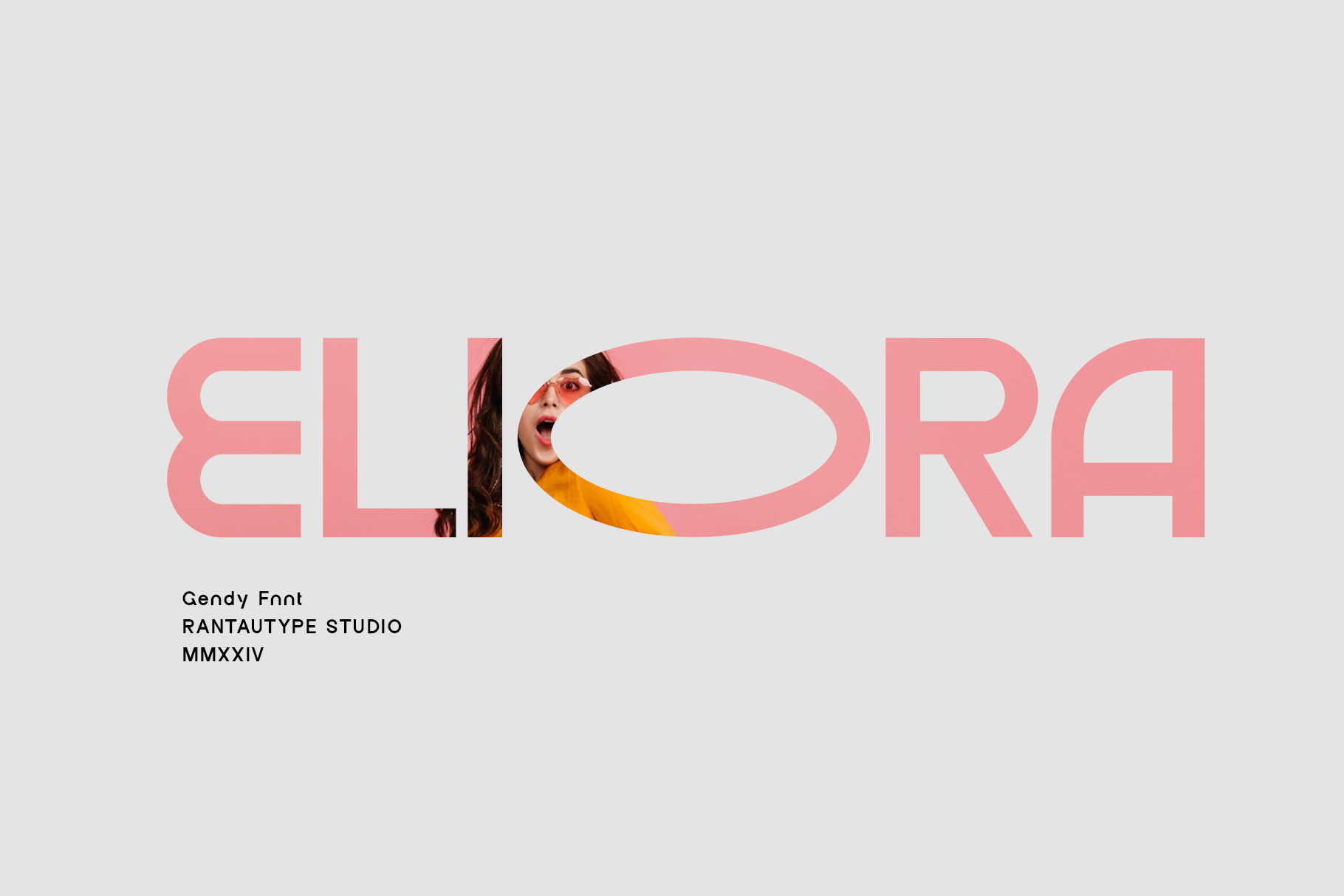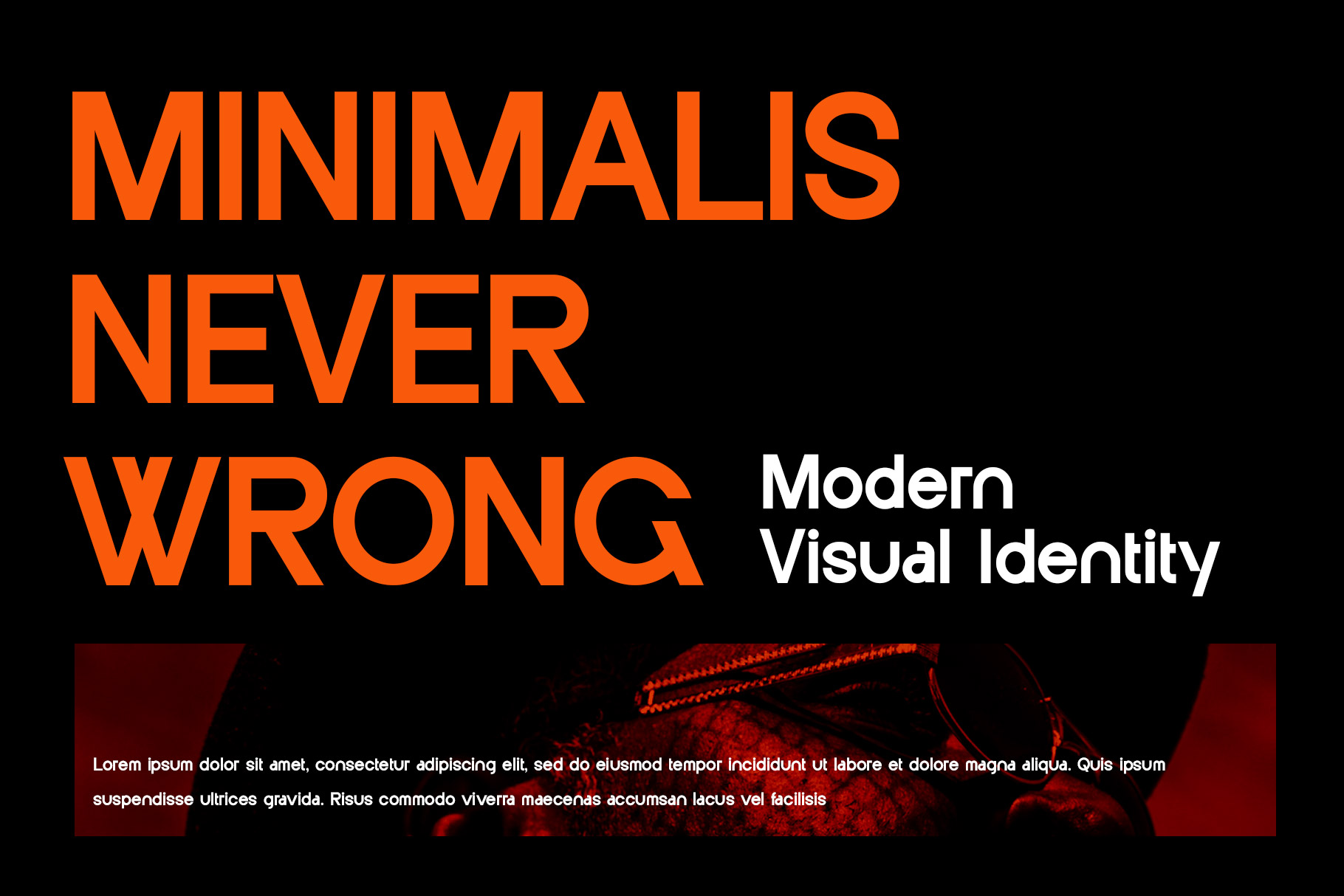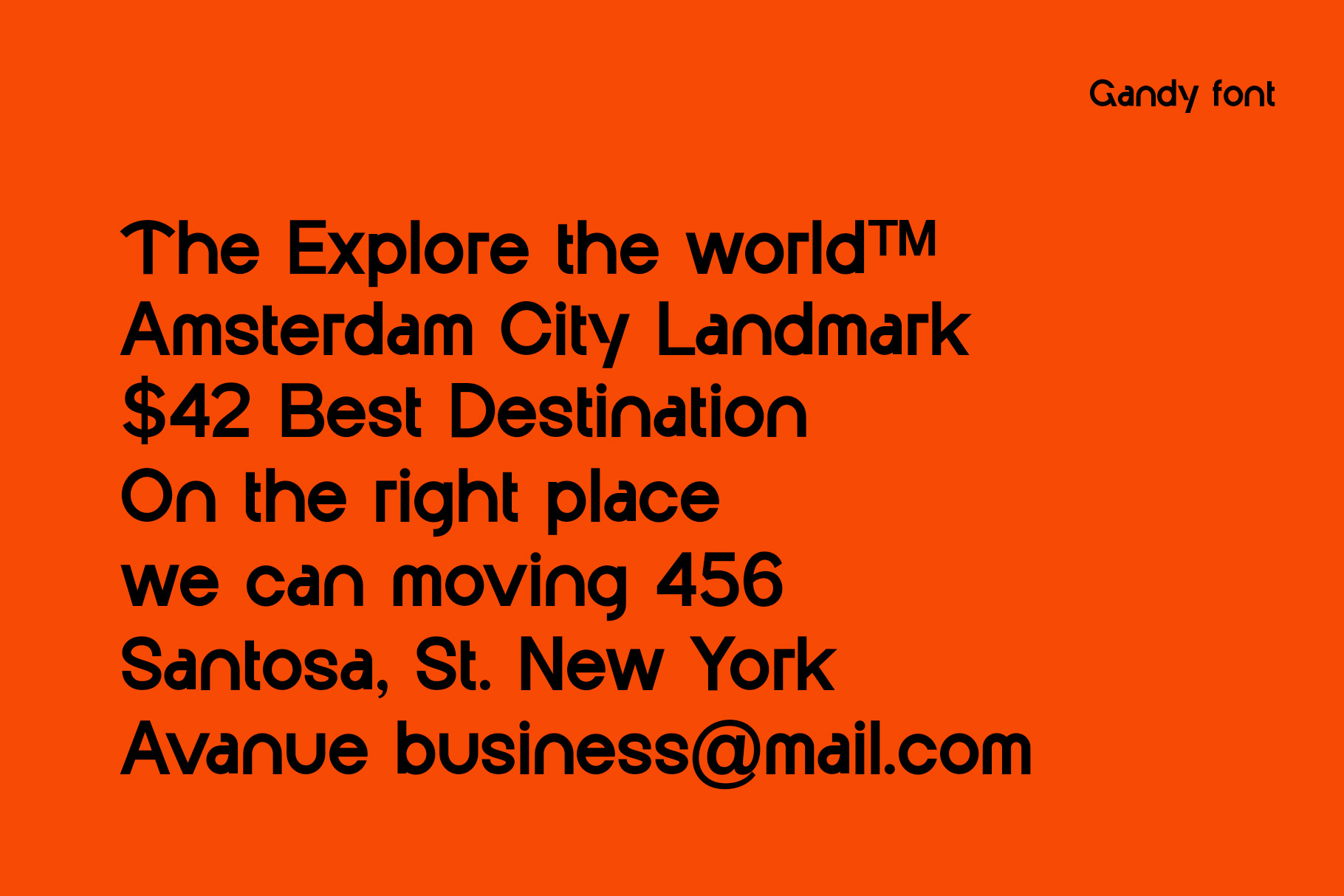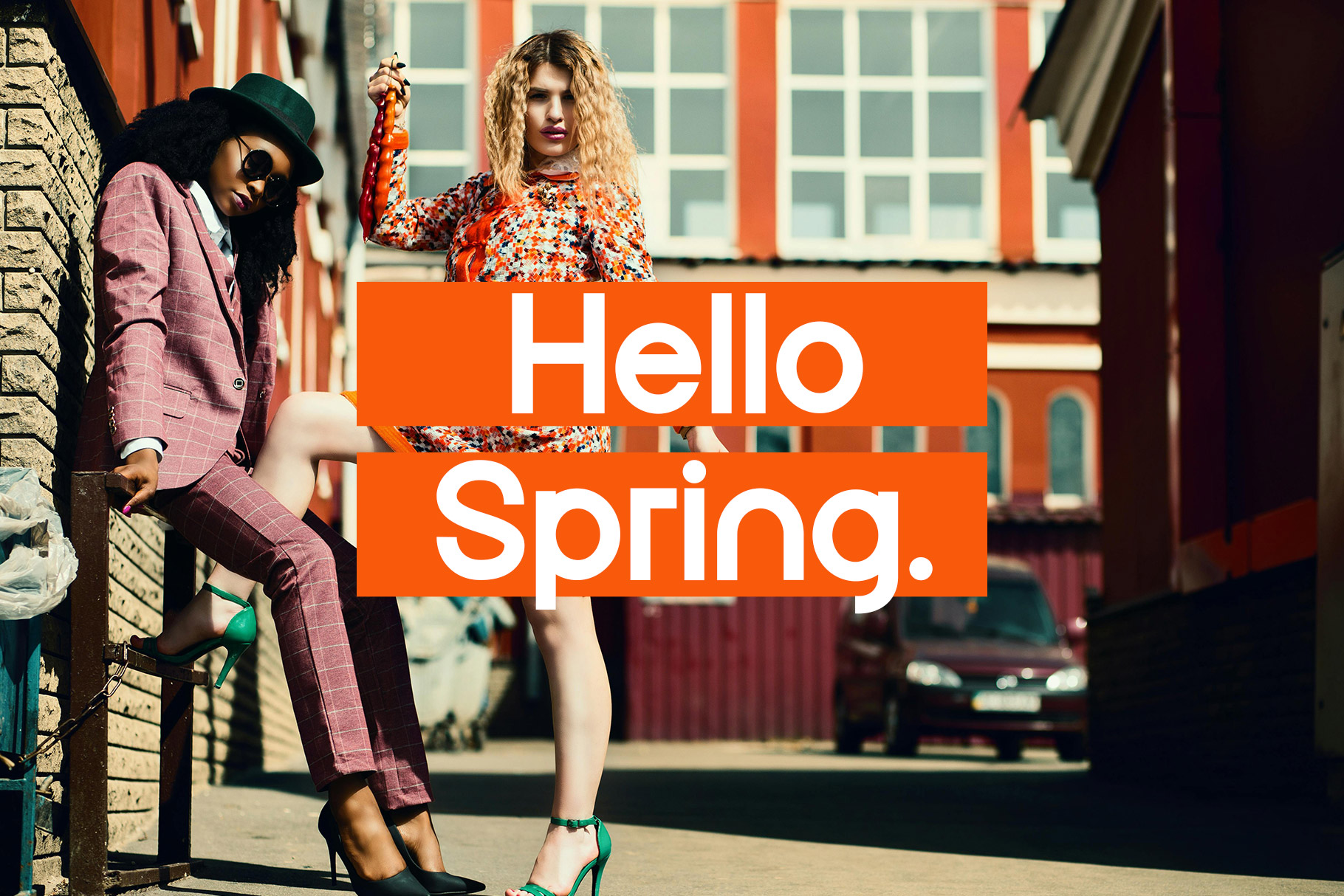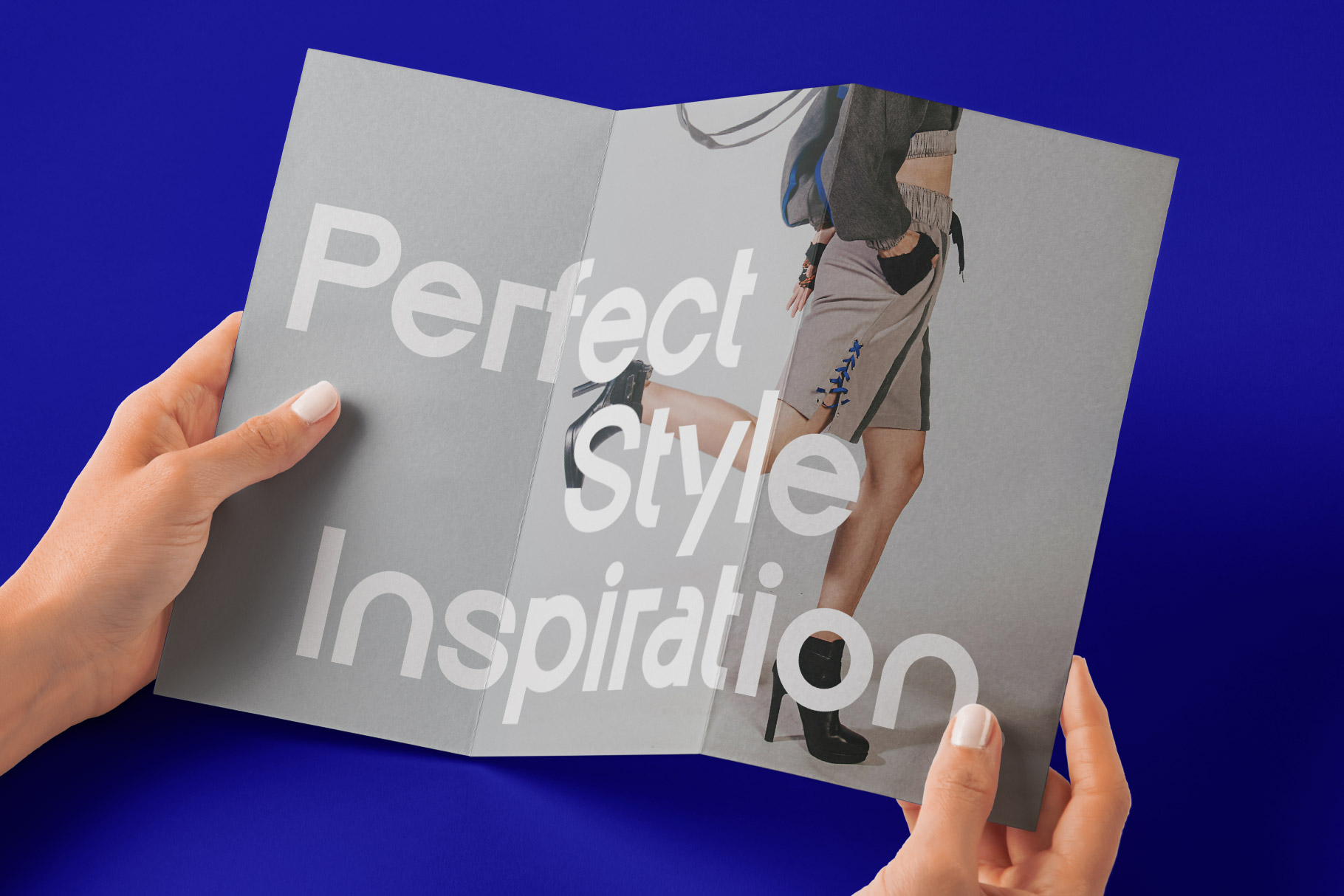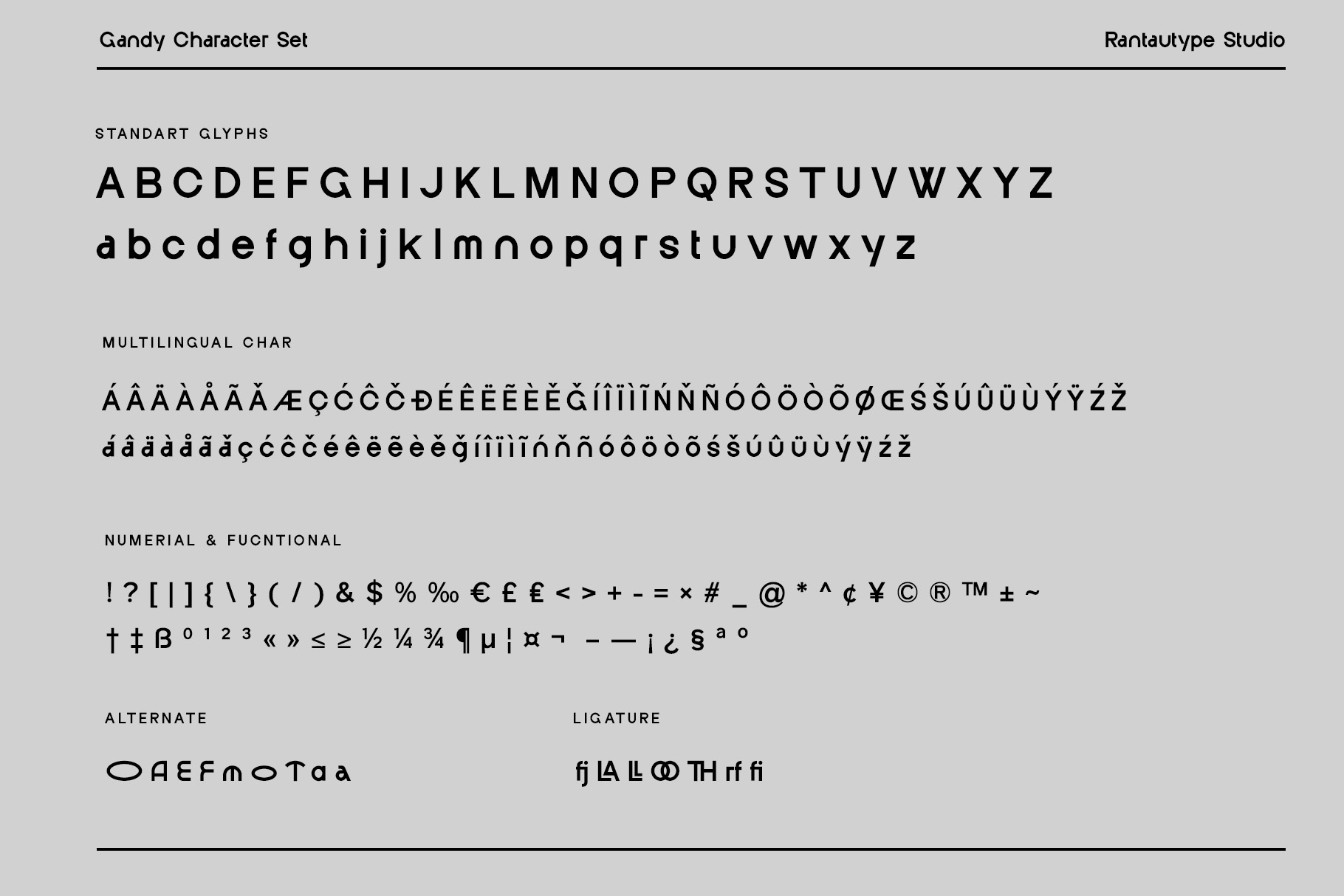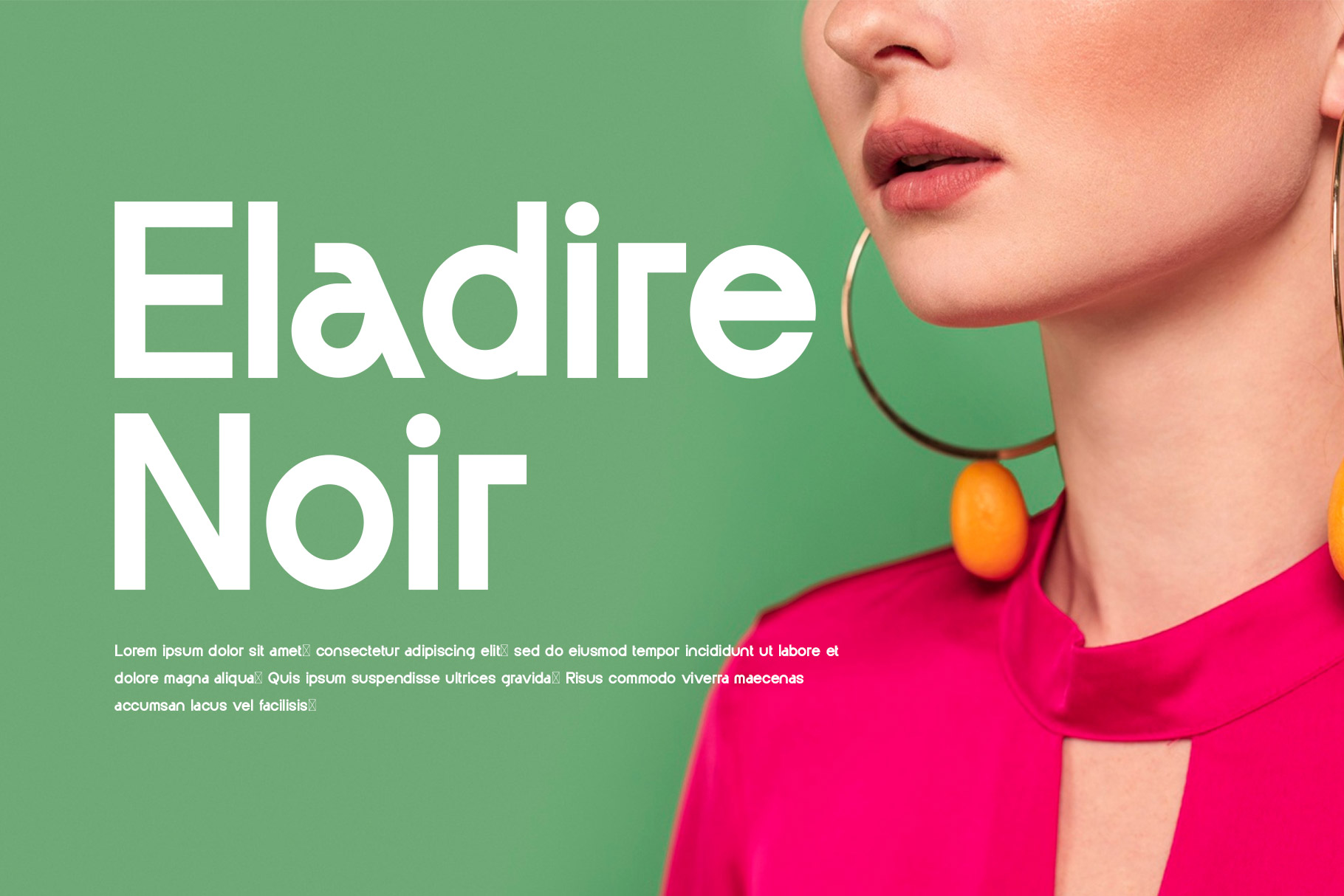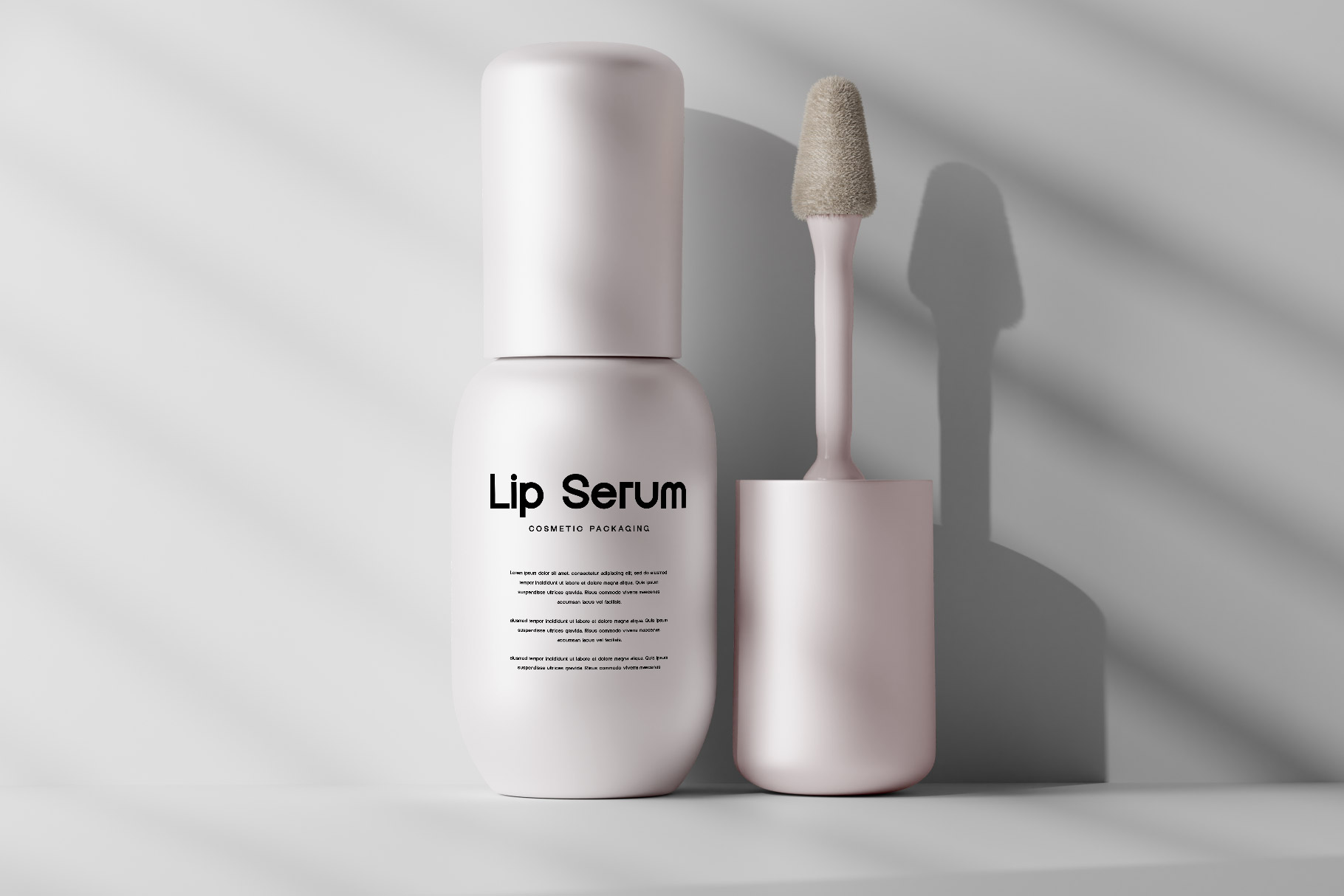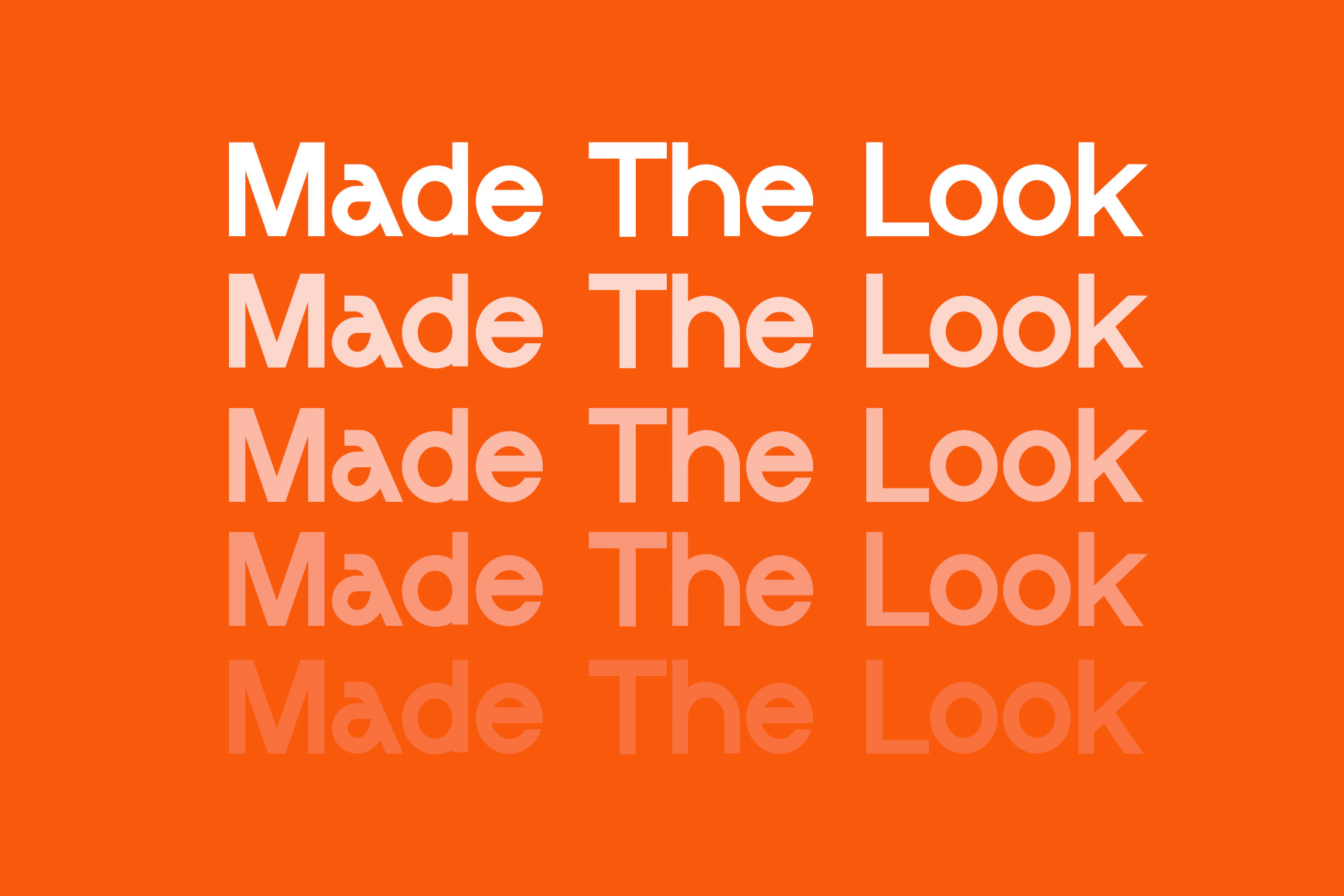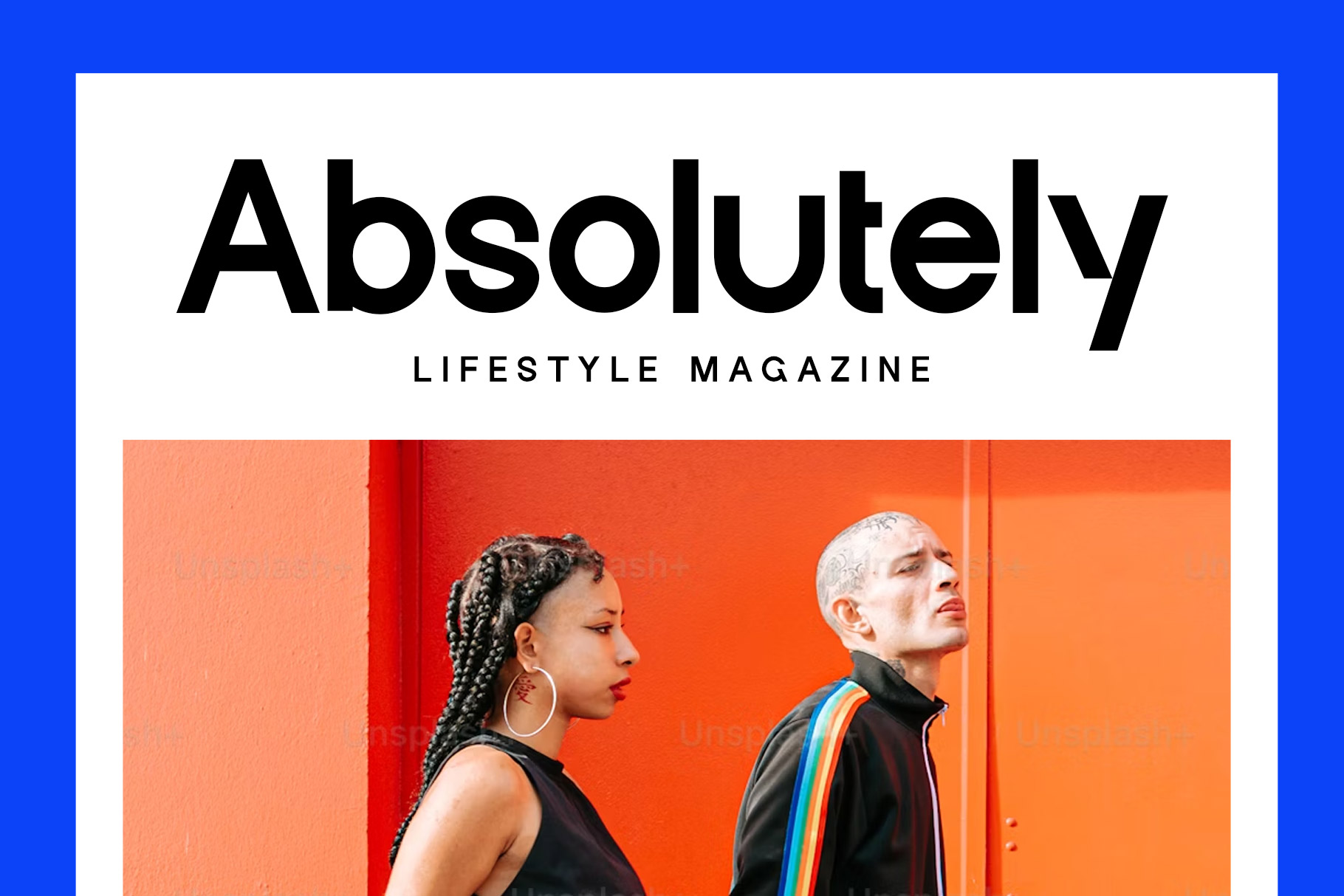
Gendy Modern Sans Font
Gendy is modern sans font insprire by modern grotesque with geometric details and deep in industrial design principles.
Gendy is a perfectly choice for any creative endeavor, chic, lifestyle design such as logos, advertisements, watermark on photography, stationery, branding project, display and magazine, invitation, corporate brand, product design, label, business project and many other project with elegant touch.